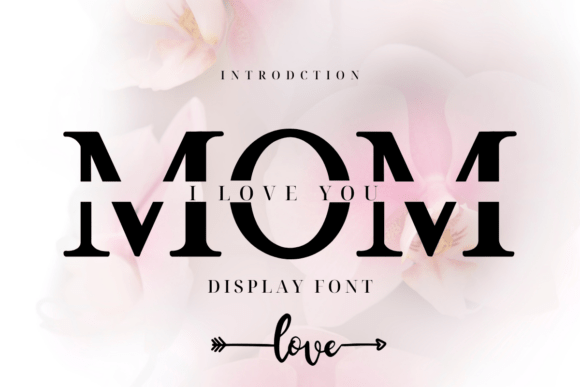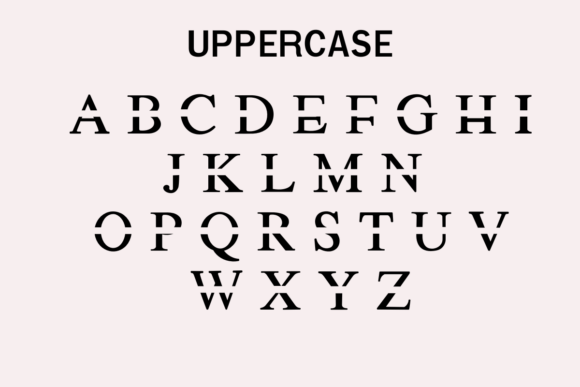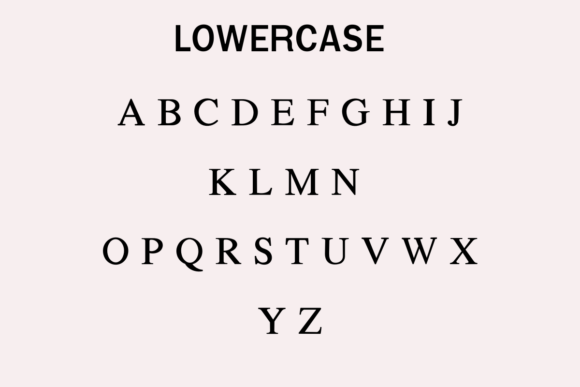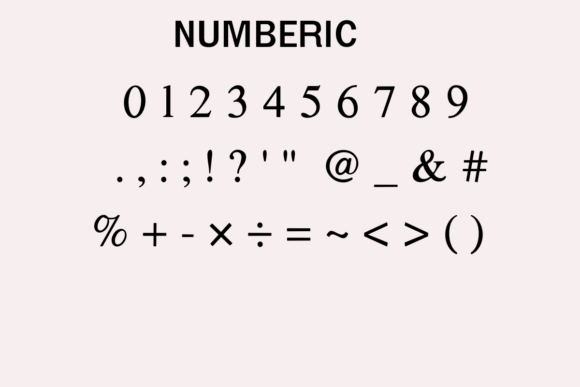
I Love You Mom Font
About the I Love You Mom Font
Introducing the I Love You Mom Font, a beautifully crafted typeface designed to elevate your creative projects. I Love You Mom is a refined and elegant serif typeface designed to express love, sophistication, and timeless beauty. Perfect for Mother’s Day cards, wedding invitations, packaging, and feminine branding, this font adds a graceful and heartfelt touch to every design. Its clean lines and subtle charm make it both modern and classic.
I Love You Mom’s elegant serif forms excel in headlines, short-form text, and branding applications requiring a touch of sophistication. It’s ideal for projects emphasizing quality, tradition, and a sense of timeless appeal, such as luxury goods packaging or high-end stationery. However, its refined details are less suited to body text or UI elements where readability over long passages is paramount.
The font’s overall personality is refined and graceful, conveying warmth without sacrificing a sense of understated elegance. It’s best suited to brands and projects focused on femininity, family, and heritage.